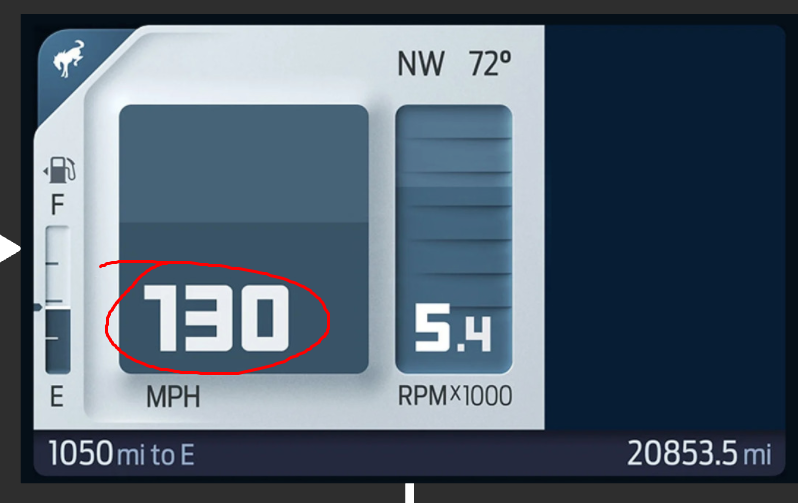
Help identify font used on the digital display of the Ford Bronco
Can you guys help identify the blocky font used for the speedometer and rev-counter on the digital dashboard of the Ford Bronco, and also the rest of the text (odometer, temperature gauge, compass, etc.)? I guess they might be proprietary fonts designed by Ford?
Can you identify the font on the other text (e.g. MPH, RPMx1000, mi to E)?